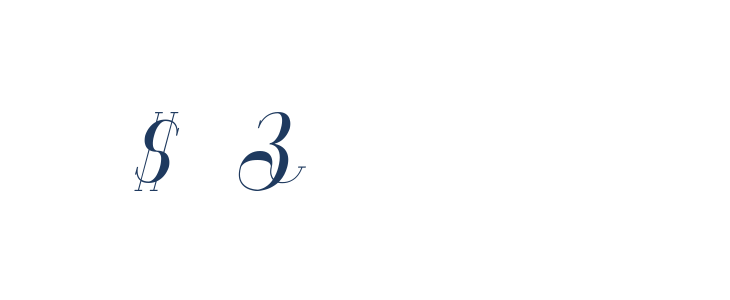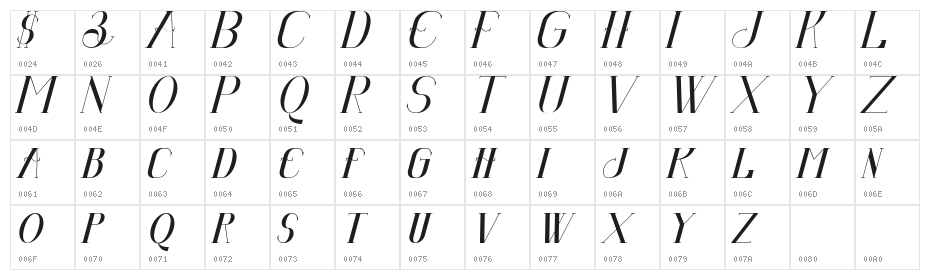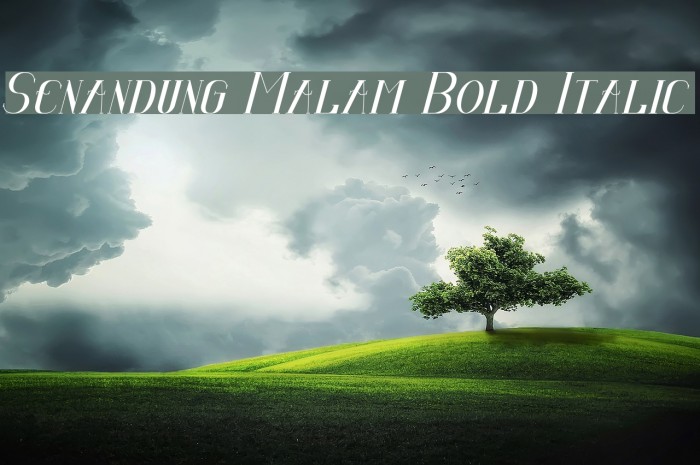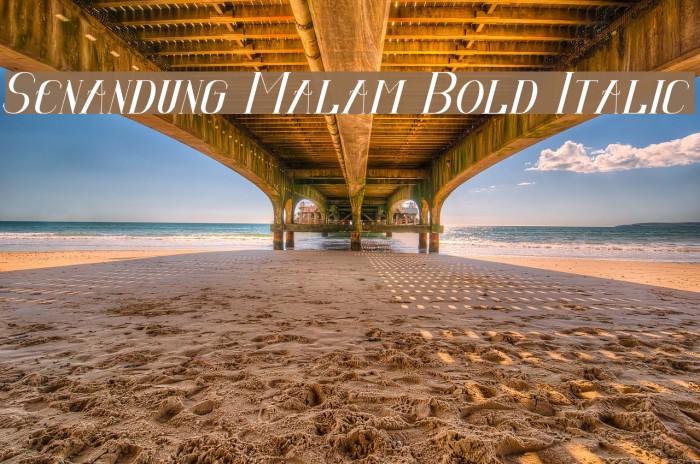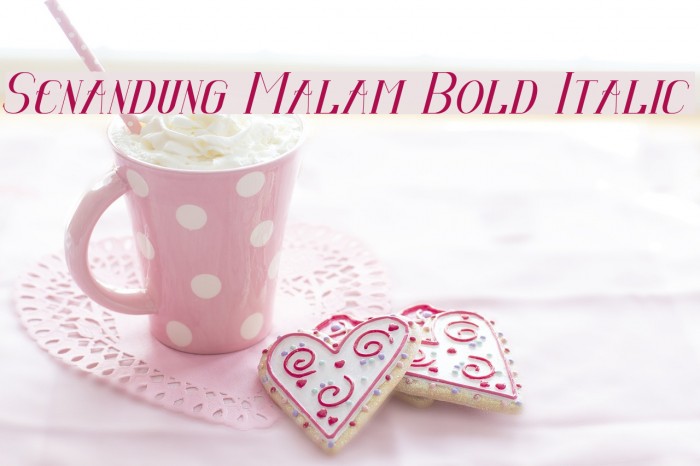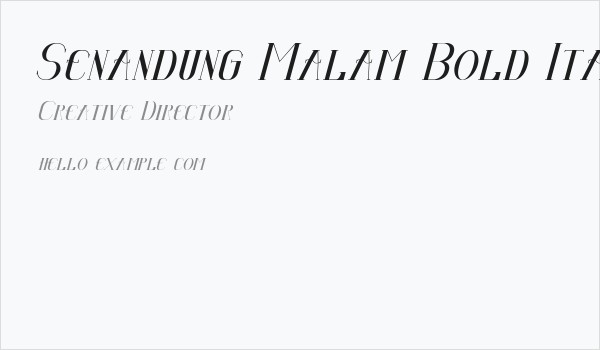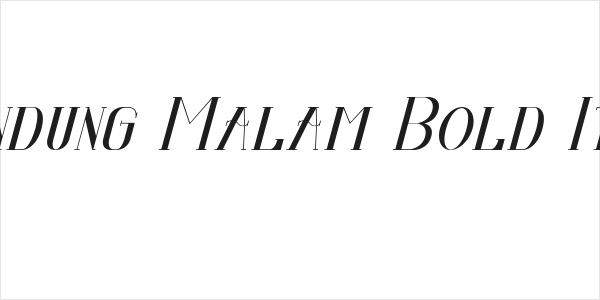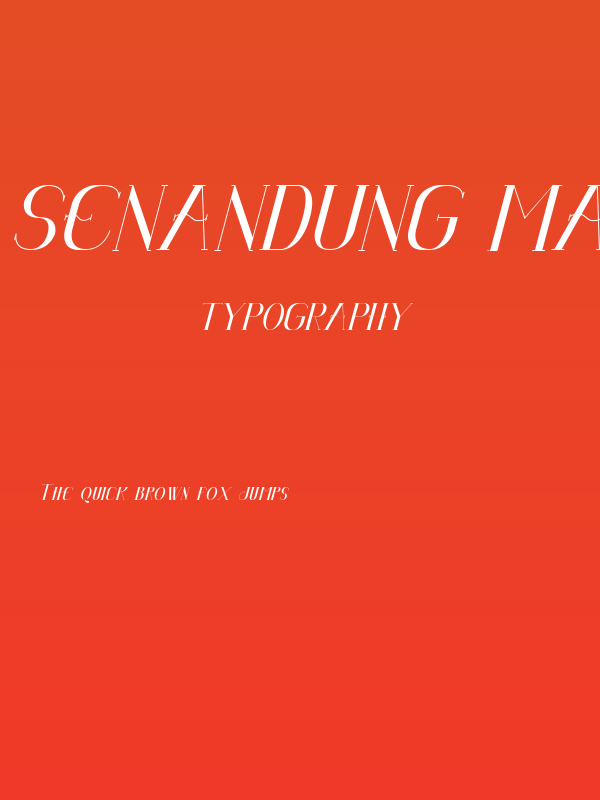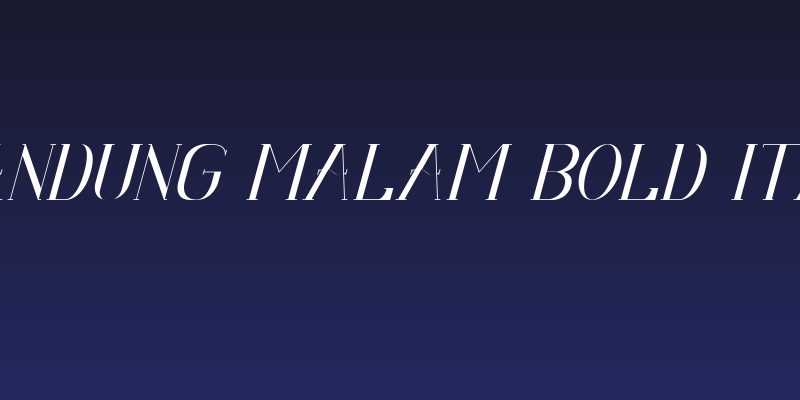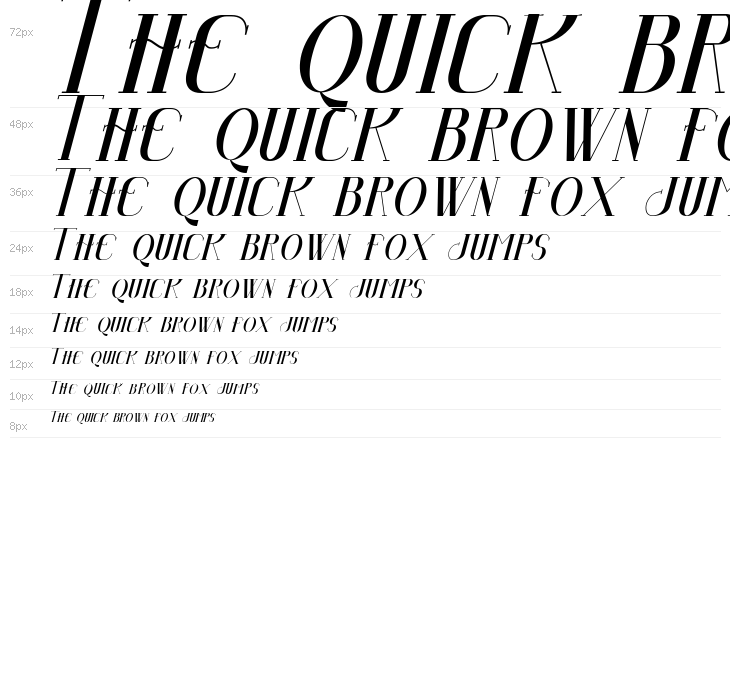
Senandung Malam Bold Italic Font
Senandung Malam Bold Italic Description
This font features a sophisticated and elegant design with a strong italic slant, giving it a dynamic and fluid appearance. The characters are bold, with high contrast between thick and thin strokes, enhancing its dramatic flair. The uppercase letters are particularly striking, with elongated serifs and a graceful flow that adds a touch of classic elegance. The lowercase letters maintain the same stylistic elements, ensuring consistency throughout the typeface. The special characters, such as the dollar sign and ampersand, are uniquely styled to match the overall aesthetic, making this font suitable for high-end branding and design projects.
| Use Case | Logos, Headlines, Branding |
| Proposed Projects | Ideal for luxury branding, fashion magazines, elegant invitations, and sophisticated logo designs. |